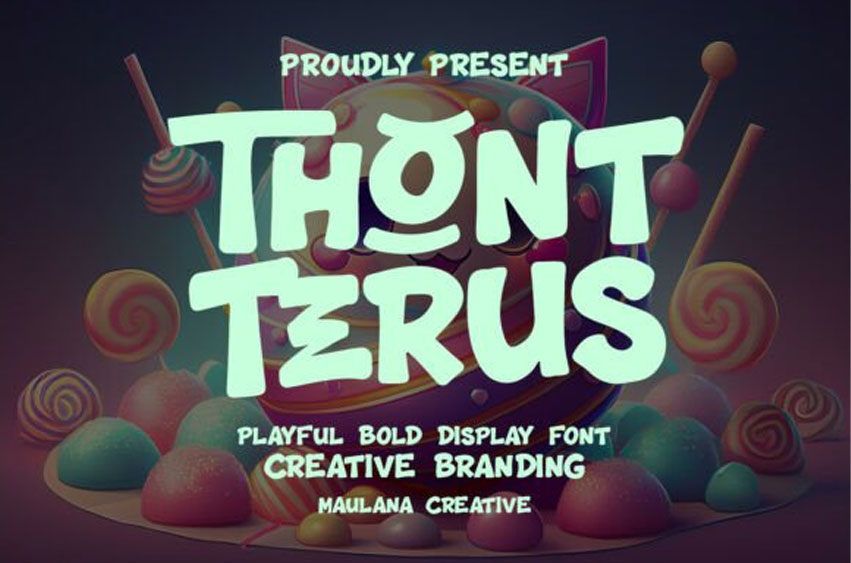
Thont Terus Font Inject a dose of fun and energy into your designs with Thont Terus, a playful bold display font designed to stand out! With its chunky, hand-drawn feel and unique character alternates and ligatures, this font is perfect for projects that need a friendly yet impactful personality.
Whether you are designing a vibrant brand identity, catchy food packaging, or engaging social media graphics, Thont Terus offers a quirky aesthetic that instantly grabs attention. Its thick strokes and bouncy rhythm make it ideal for headlines, social media, children’s books, and restaurant menus.